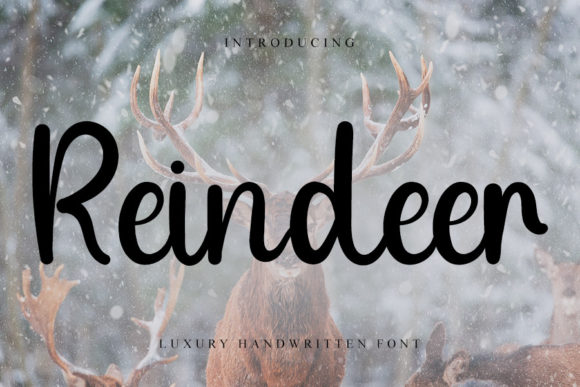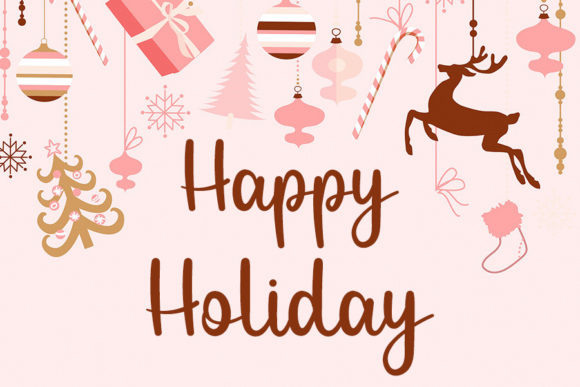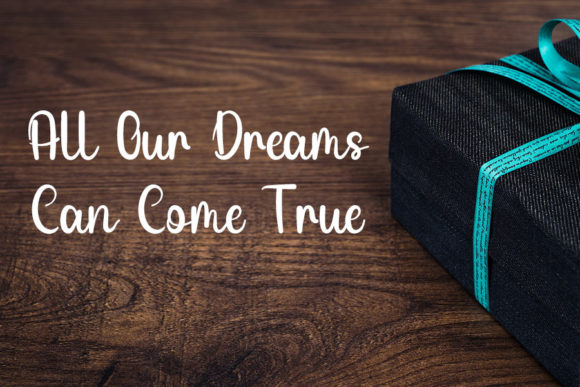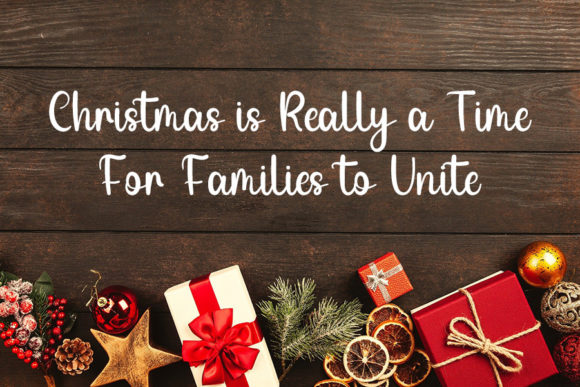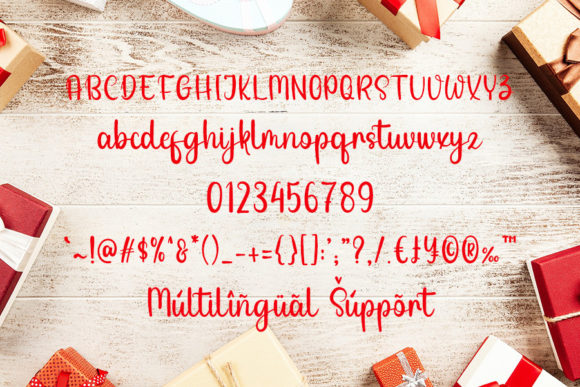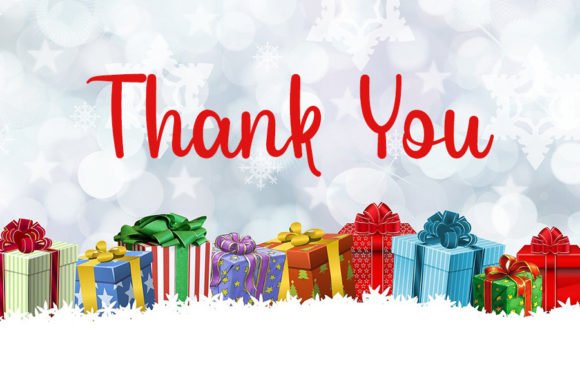
Reindeer Font
About Reindeer Font
Reindeer is a charming and amazing script font. It has beautiful and well-designed characters, and as a result, it matches a wide pool of designs.